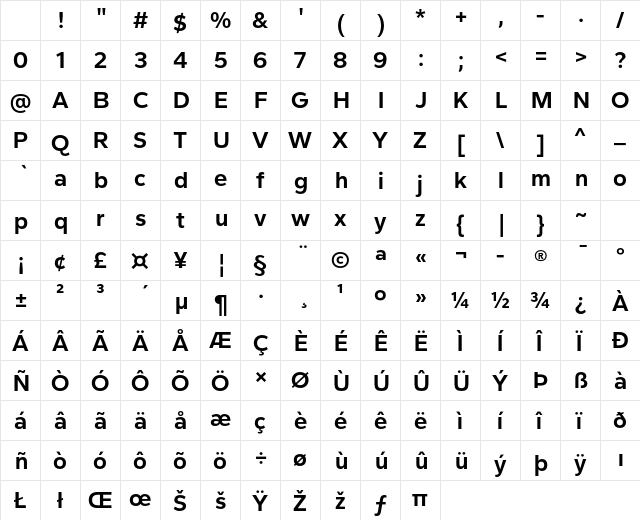
Cedora is a composed and adaptable typeface that performs quietly and consistently across a wide range of design contexts. Its bold stroke weight gives it real presence on the page.